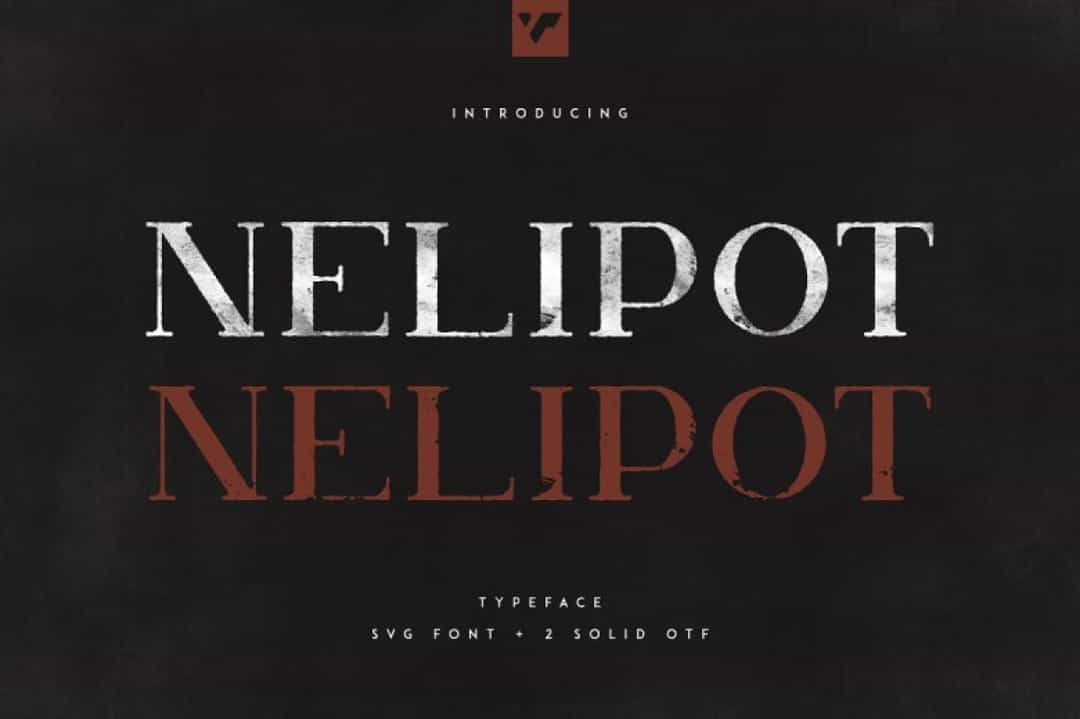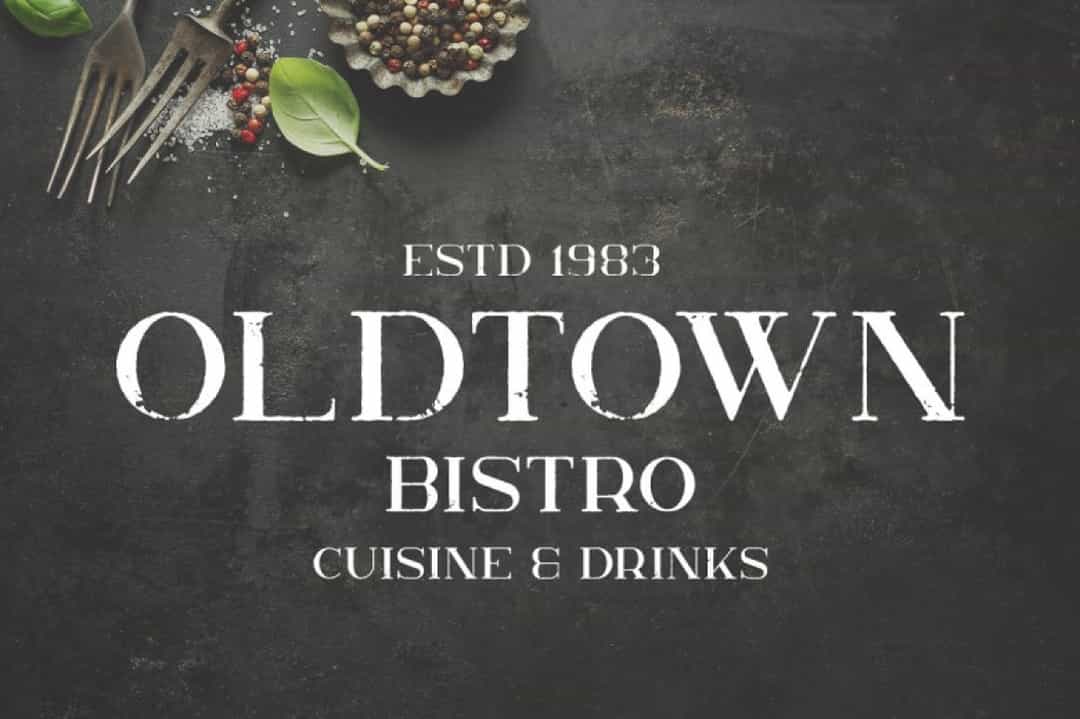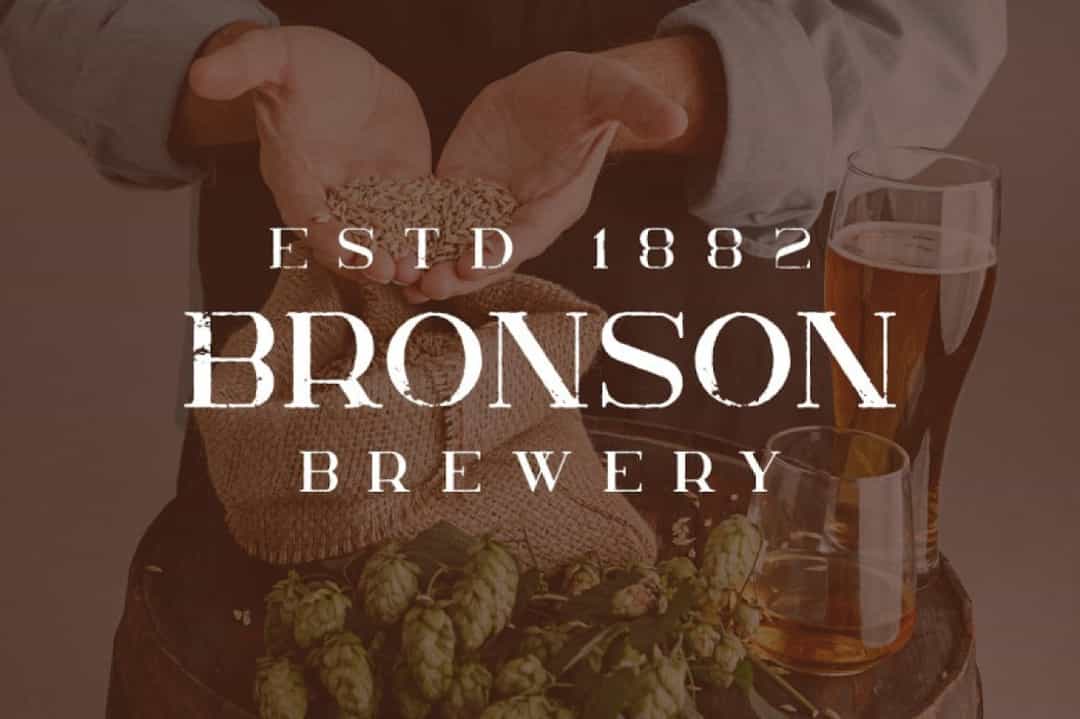
Nelipot Typeface was inspired by western history. A serif typeface with retro western flair, Nelipot Font is suitable for branding projects, homeware packaging and product magazines as well as headers or just providing an elegant text overlay for images.